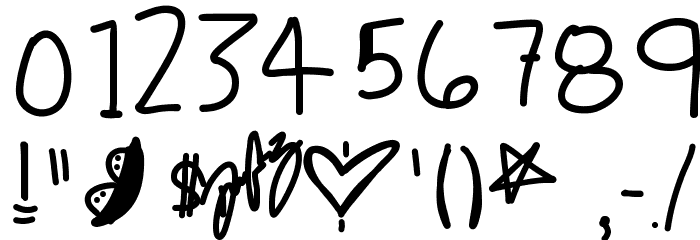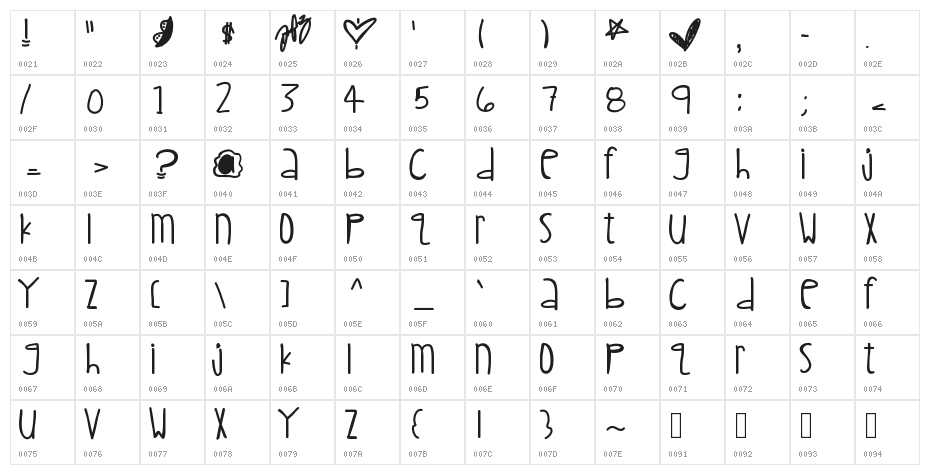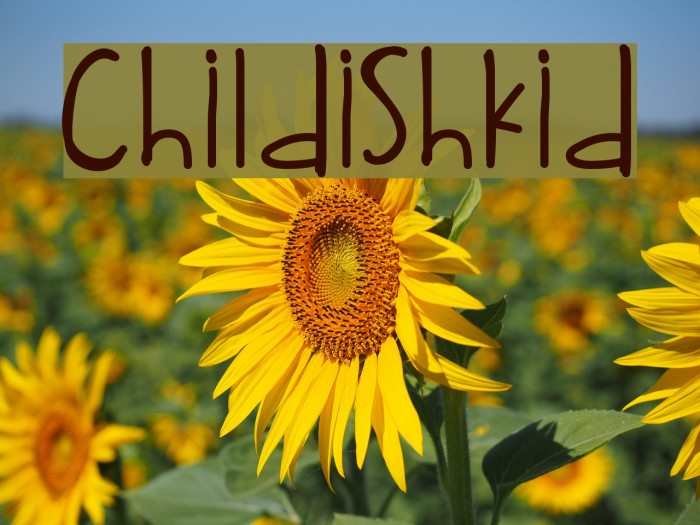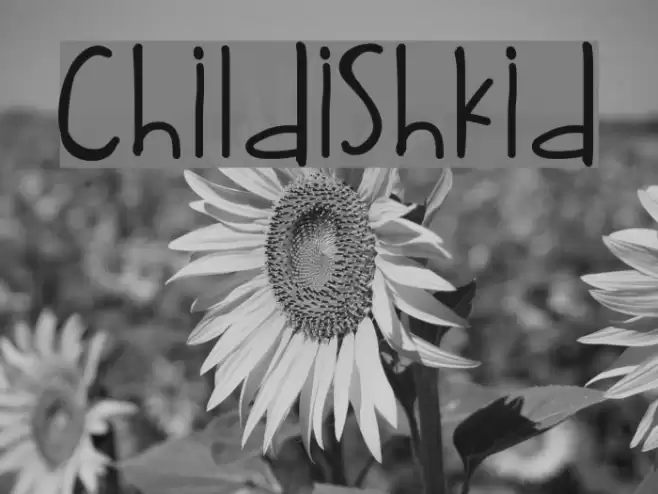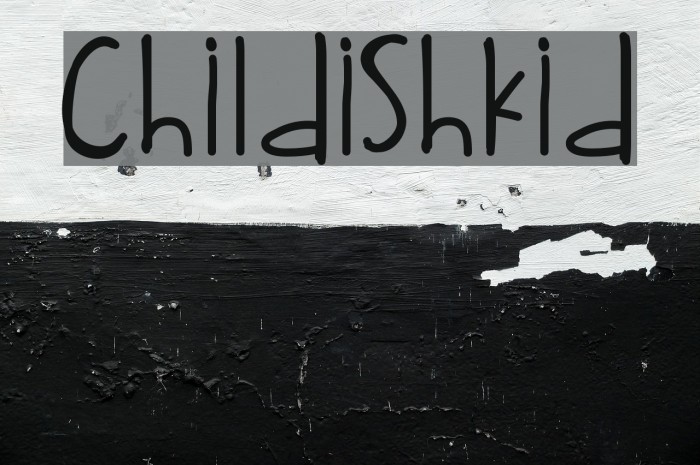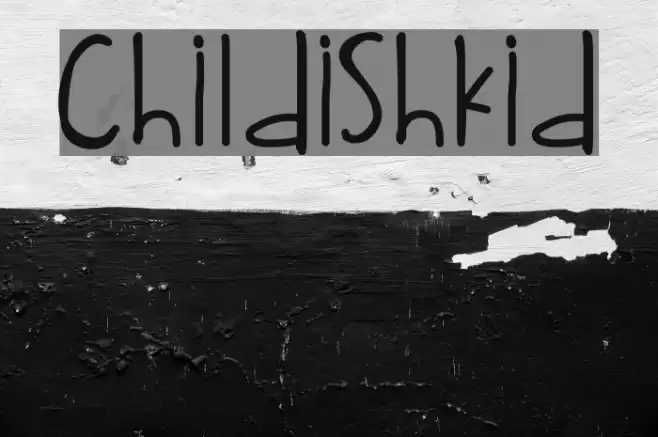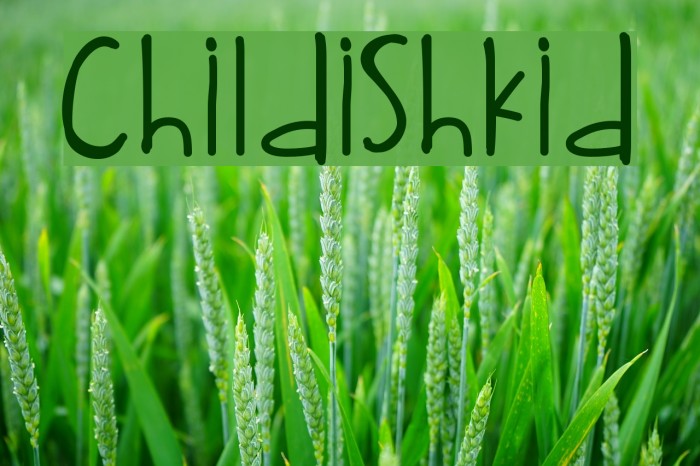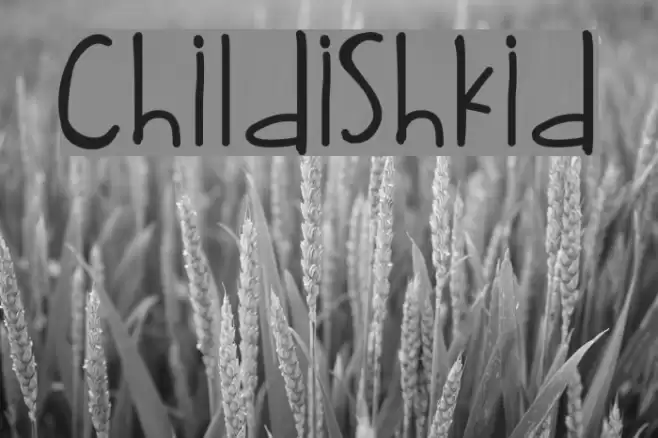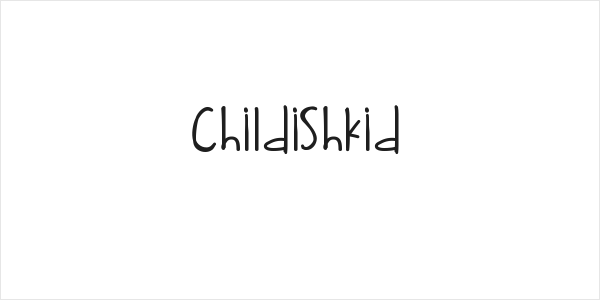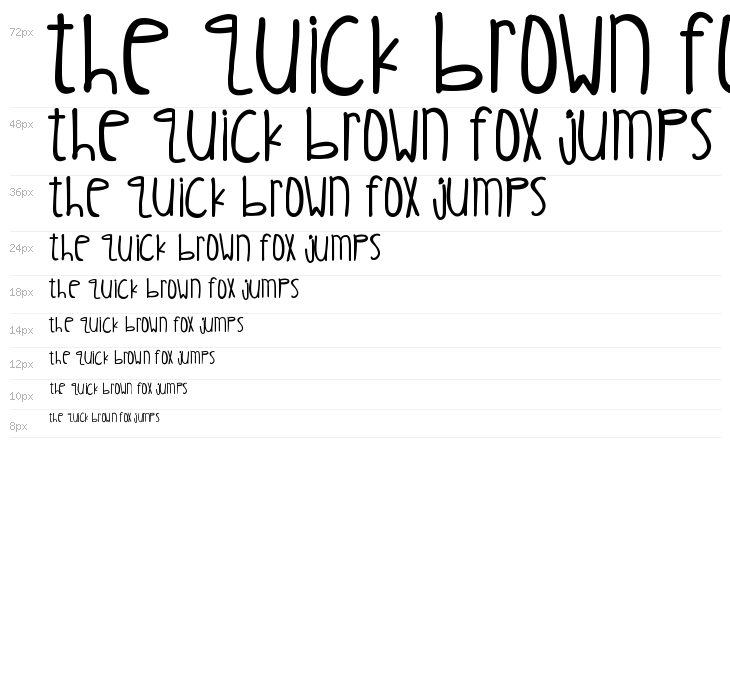
ChildishKid Font
ChildishKid Description
This playful and whimsical font features a hand-drawn style that exudes a sense of fun and creativity. The characters are slightly irregular, with a casual, childlike appearance that adds charm and personality. The strokes are consistent in width, giving it a uniform look despite its informal style. The uppercase and lowercase letters are distinct yet harmonious, maintaining readability while offering a unique aesthetic. Numbers and special characters follow the same playful design, making this font versatile for various creative applications. Its overall appearance is both approachable and lively, perfect for projects that aim to convey a sense of joy and imagination.
Overall StylePlayful
Use CaseHeadlines, Logos, Creative projects
Proposed ProjectsIdeal for children's books, playful branding, greeting cards, and educational materials.